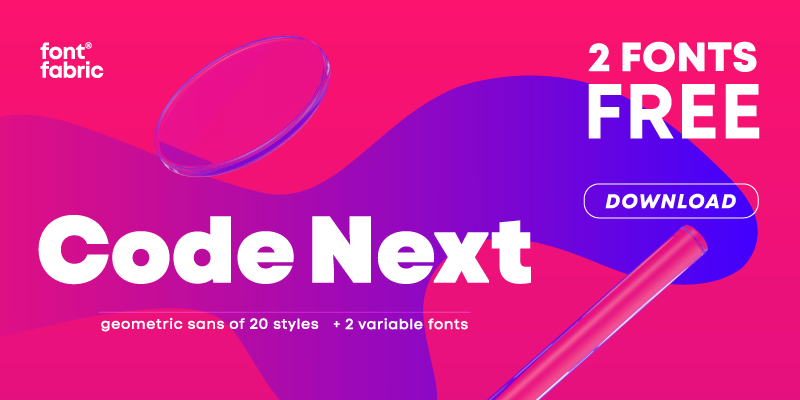
We�re revealing the stand-alone type family Code Next�a staggering evolution from Code Pro in functionality, versatility, and application. The transformation includes 6 new weights, 10 new Italics, full support of Extended Cyrillic and Greek, full redesign and glyphs refinement, and 2 variable fonts, to name but a few. |